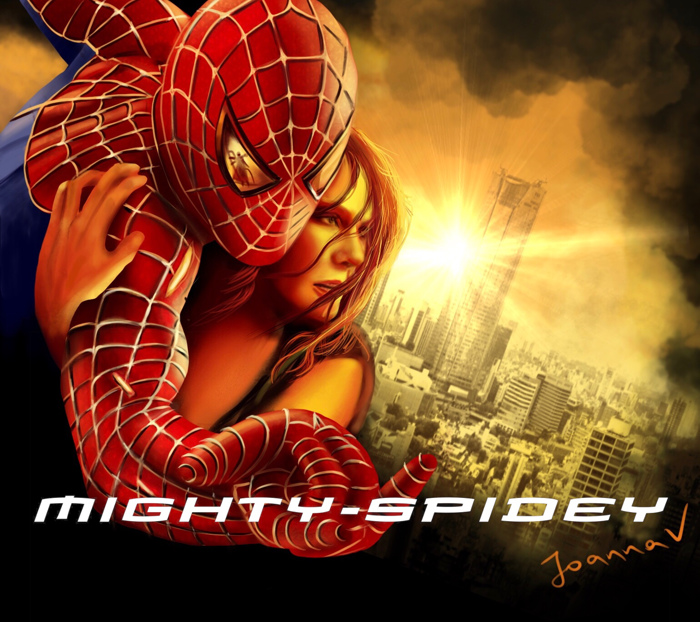
mightyspidey Font
More info from JoannaVu
While working on a 2004 Spider-Man artwork, I realized no one did a font based on the movie logo. So I decided to make my own.
Named “mighty spidey” after an iOS game I started developing a few years ago, but never had the chance to finish.